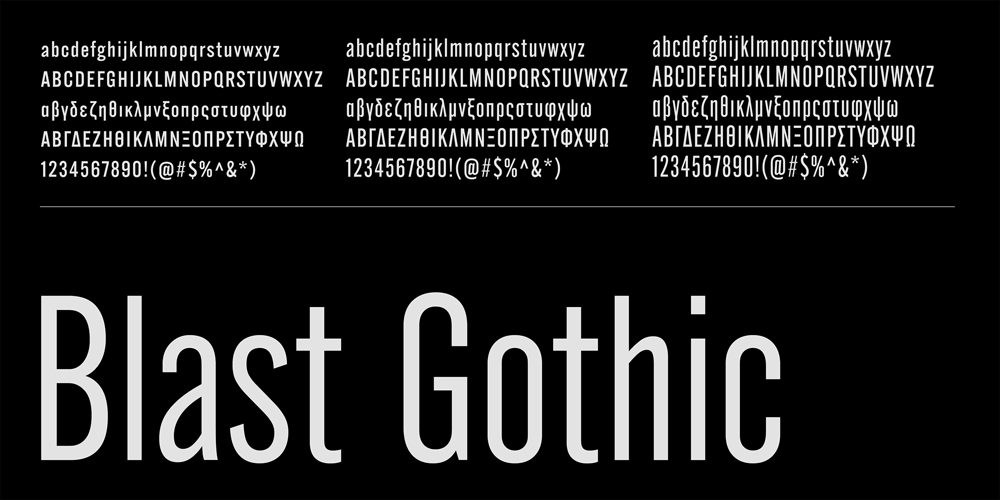
CF Blast Gothic
CF Blast Gothic font
CF Blast Gothic Font Family was designed by Panos Haratzopoulos and published by Fonts.GR. CF Blast Gothic contains 48 styles and family package options. Blast Gothic has reference to early 20th century designs, specifically Morris Fuller Benton’s Alternate Gothic. Its characteristic element is the three different heights of the characters, but each of them is lined up with the others at the same width. The original typeface, in addition to the special narrow design, was also characterized by only bold letters for heavy titles.In the new version, Blast Gothic, still consists of three heights of narrow fonts, but they are accompanied by 8 different weights for each height and correspondingly designed italics. A total of 48 fonts, 16 for the medium height Medi, 16 for the low Mini and also 16 for the tall Maxi. Combined with the intermediate instances provided in the Variable version (free in the full package), they make Blast Gothic an ideal solution for titles, on modern sites, for logos or posters. The versatility provided by the different heights and thicknesses can give a special image to each project that will be used. Blast Gothic supports Latin (Extended) and Greek monotonic, 4 different numbering modes, fractions and more.